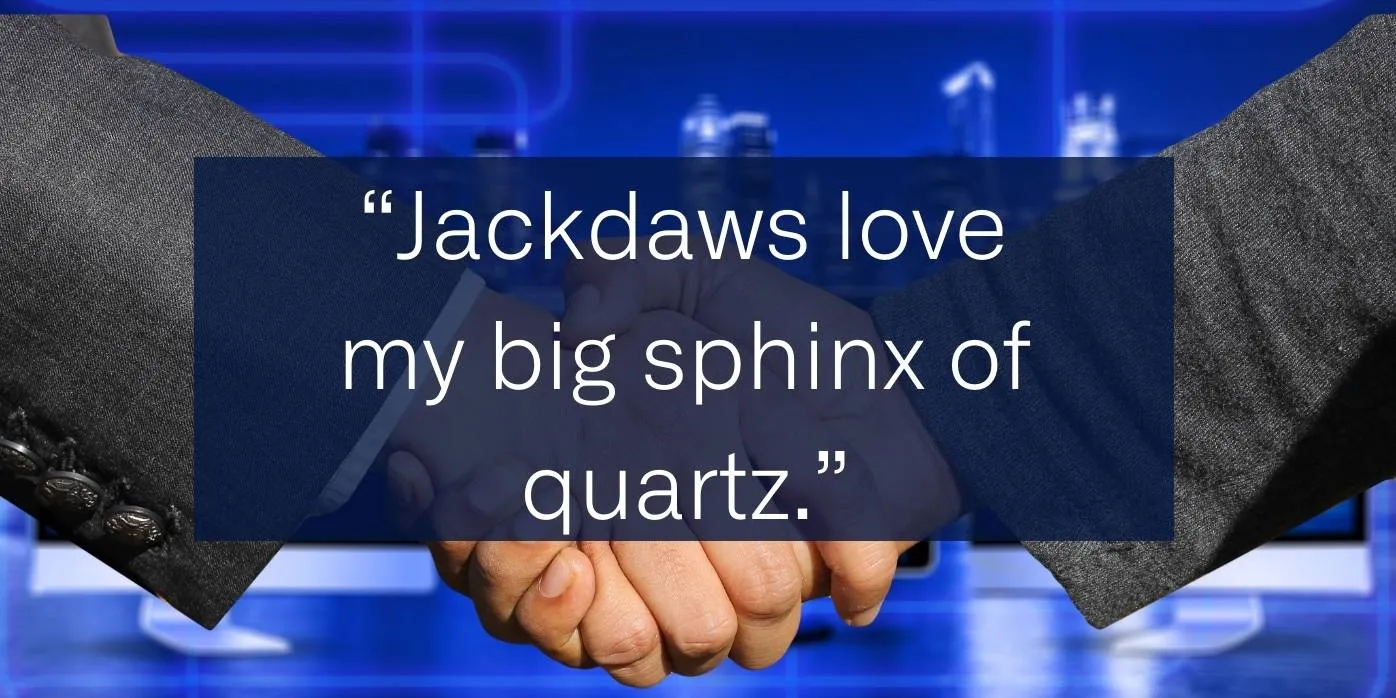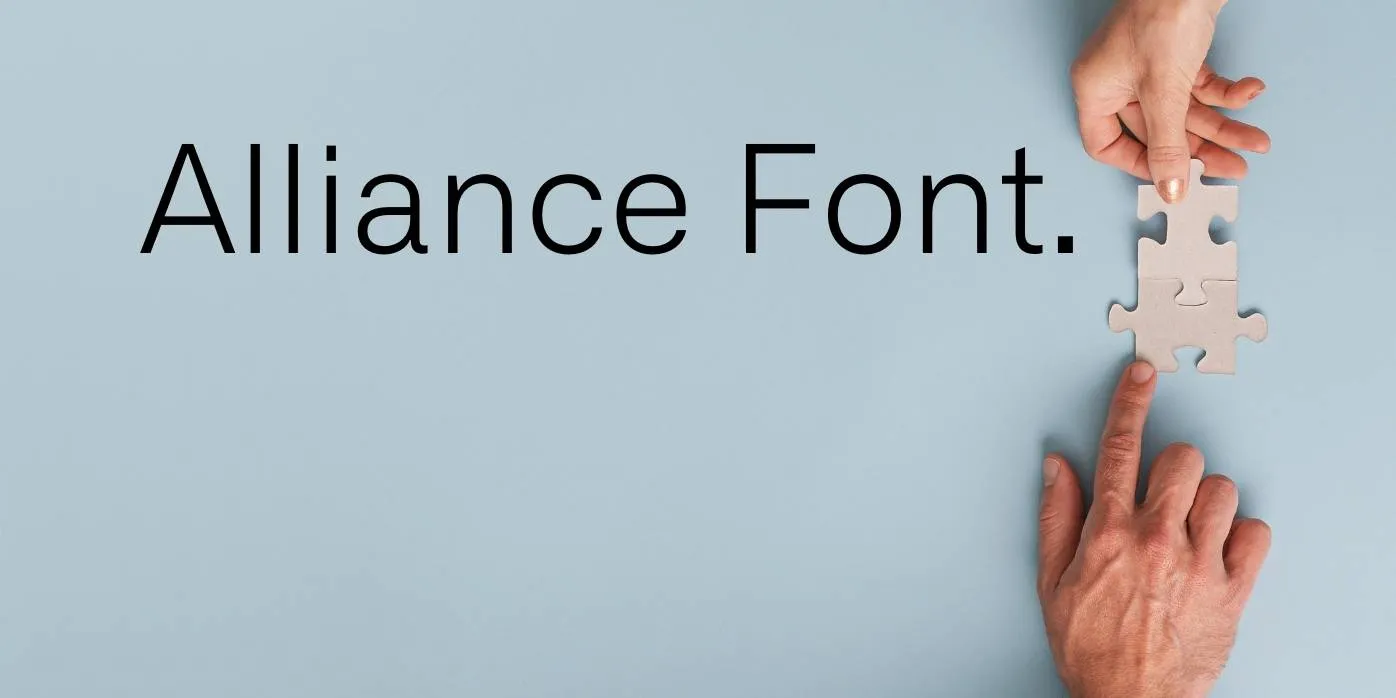
Alliance Font
Alliance Font was developed by Degarism Studio. This typeface belongs to this Sans-Serif Font Family. It has a uniform and modern design that is perfect for large bodies of text. This awesome font is available in six weights that are given thin, light, book, regular, medium, and bold.
These stylish weights make this Font perfect for a lot of designs and display settings as well. It includes old-style numerals, fractions, and small caps. This typeface is free just for personal use. It is specified by CSS Family.
Its copy and paste function is very useful. This cozy Font was created to be a versatile typeface that can be helpful in a variety of settings. You can also use this font similar to that is Gills Sans Font Its clean lines and modern design make it perfect for many projects. It also includes unique characters that can set it apart from other fonts.